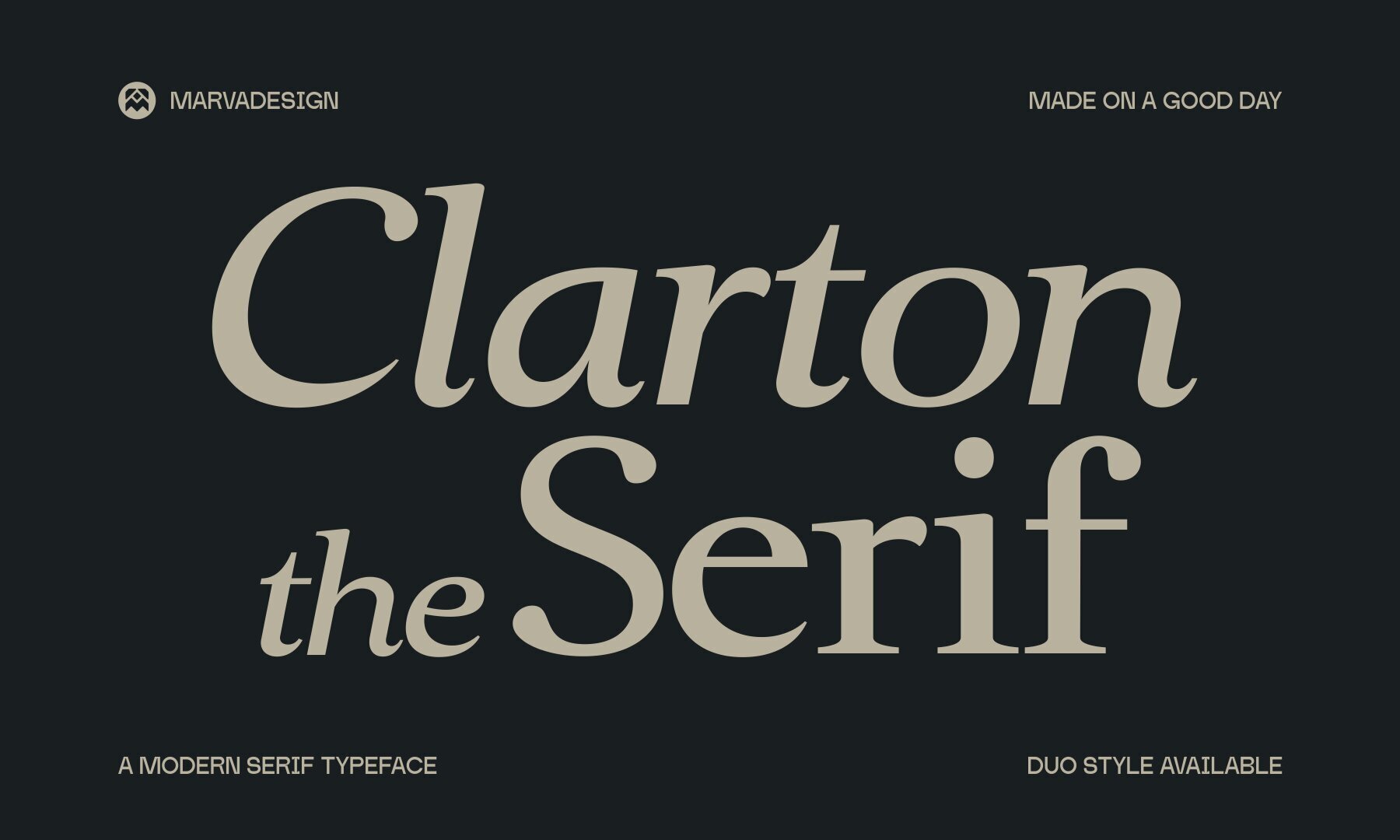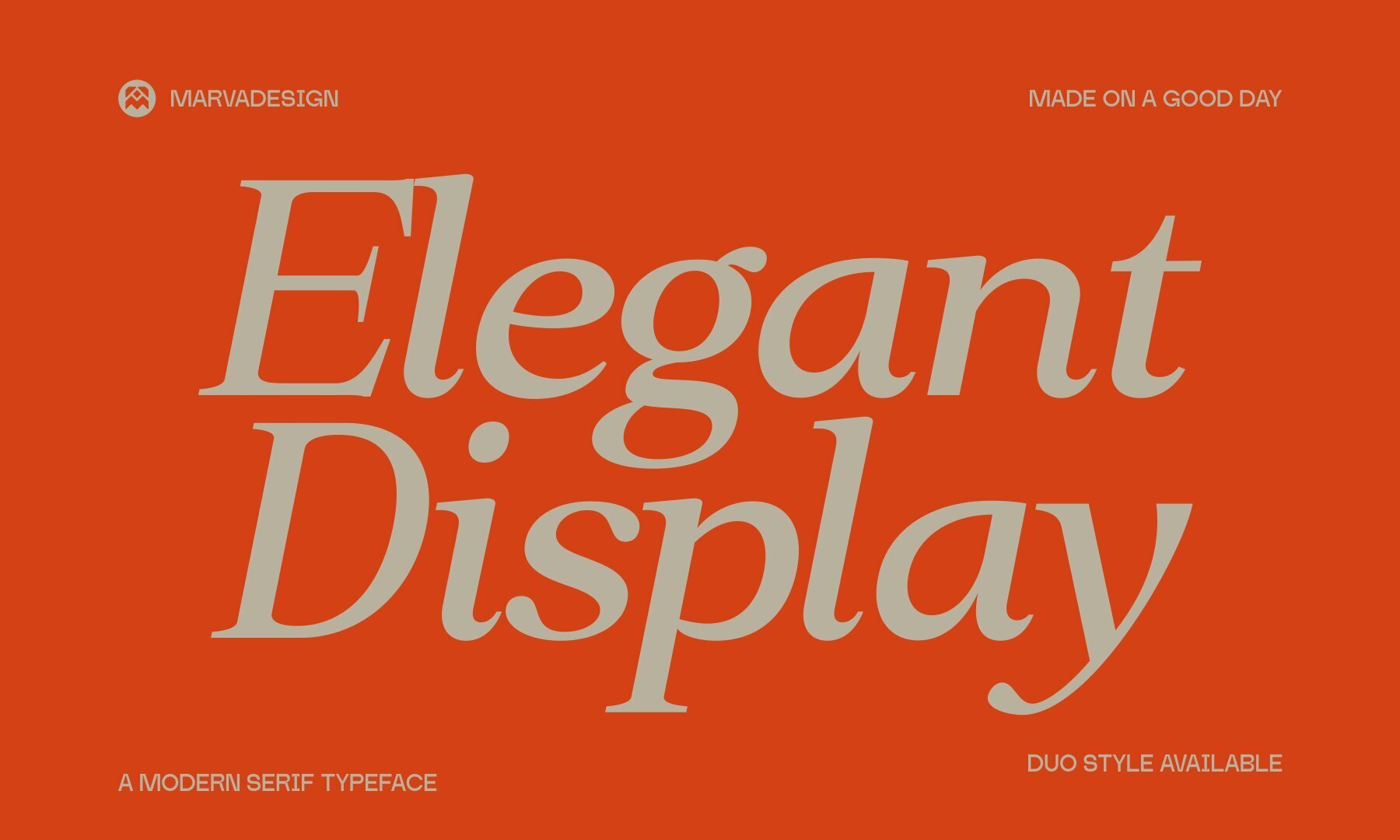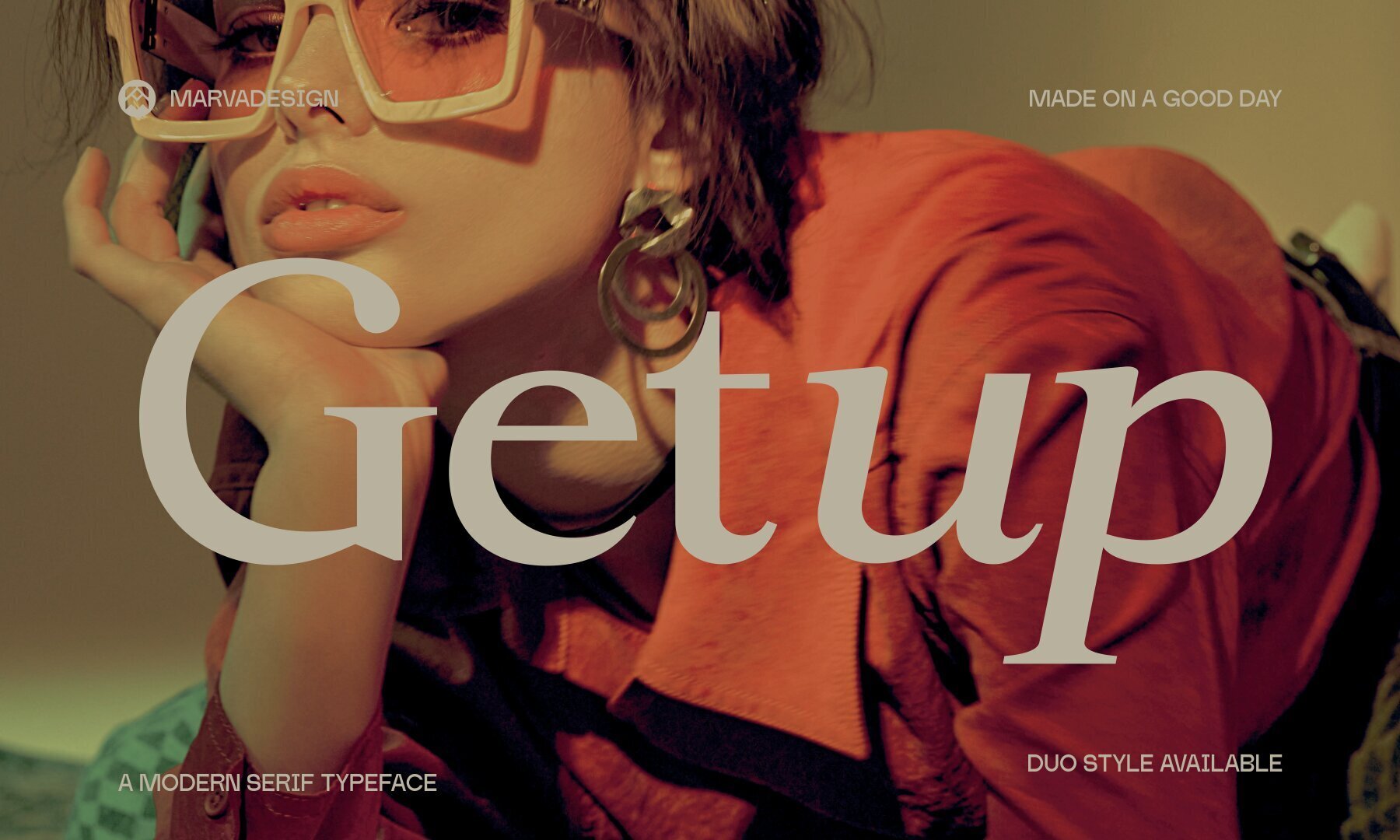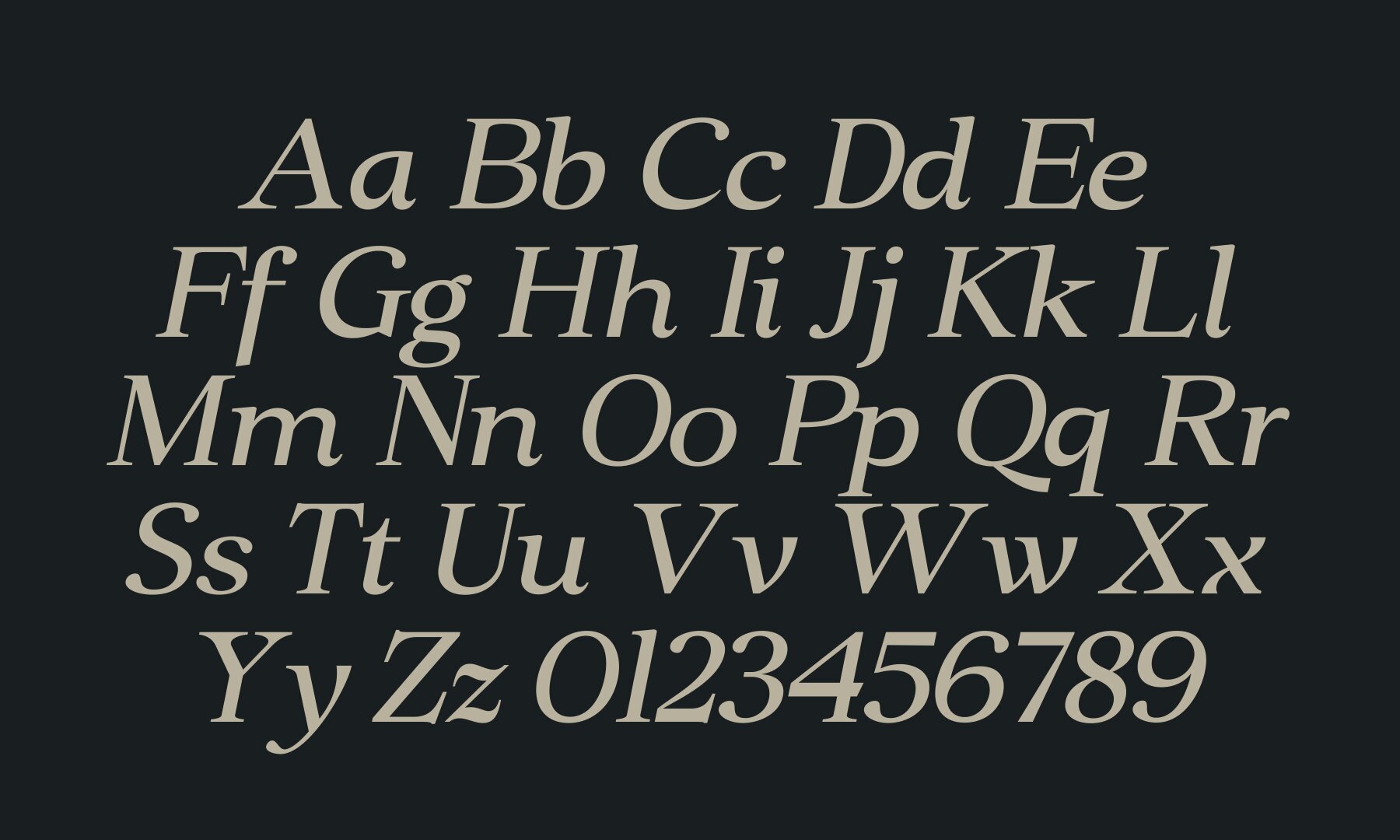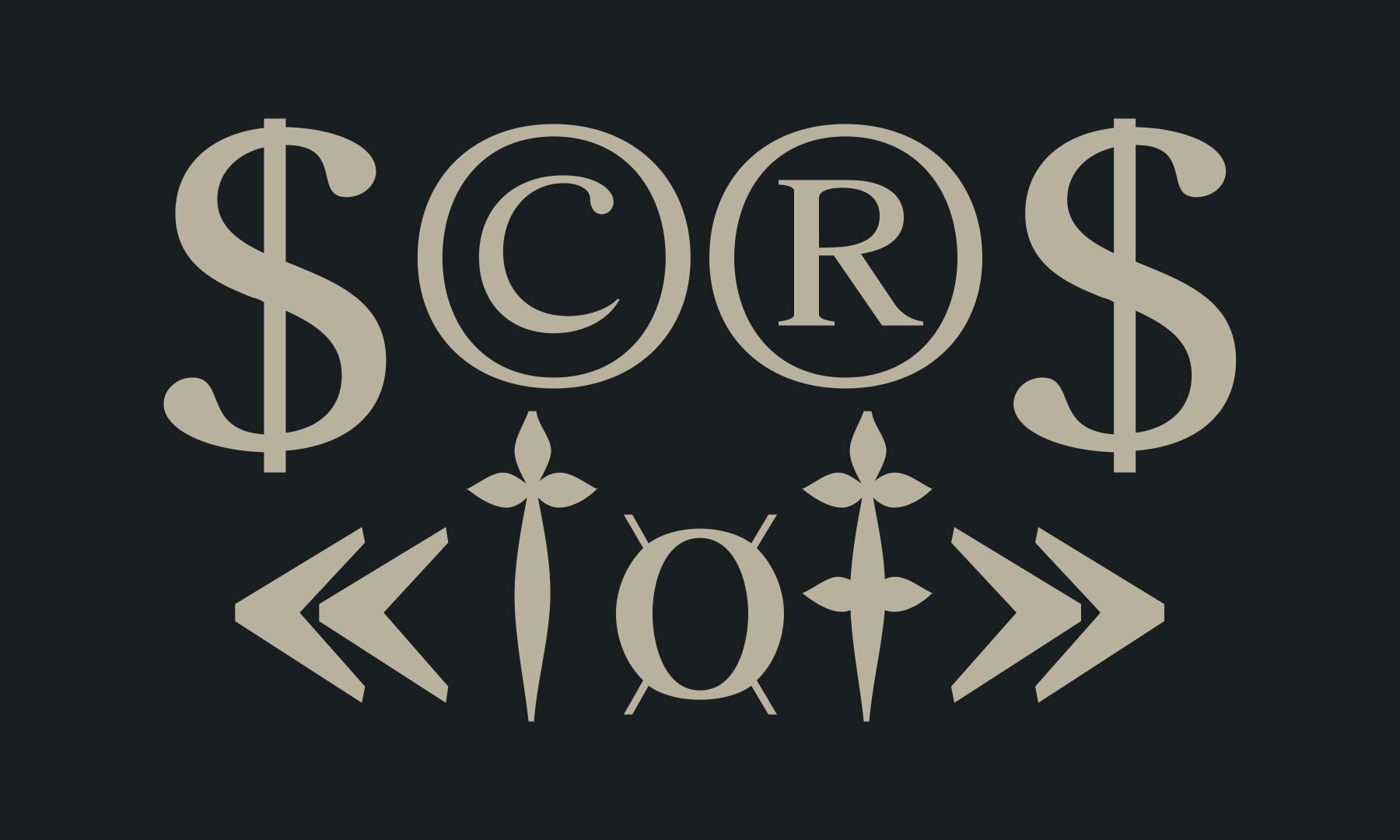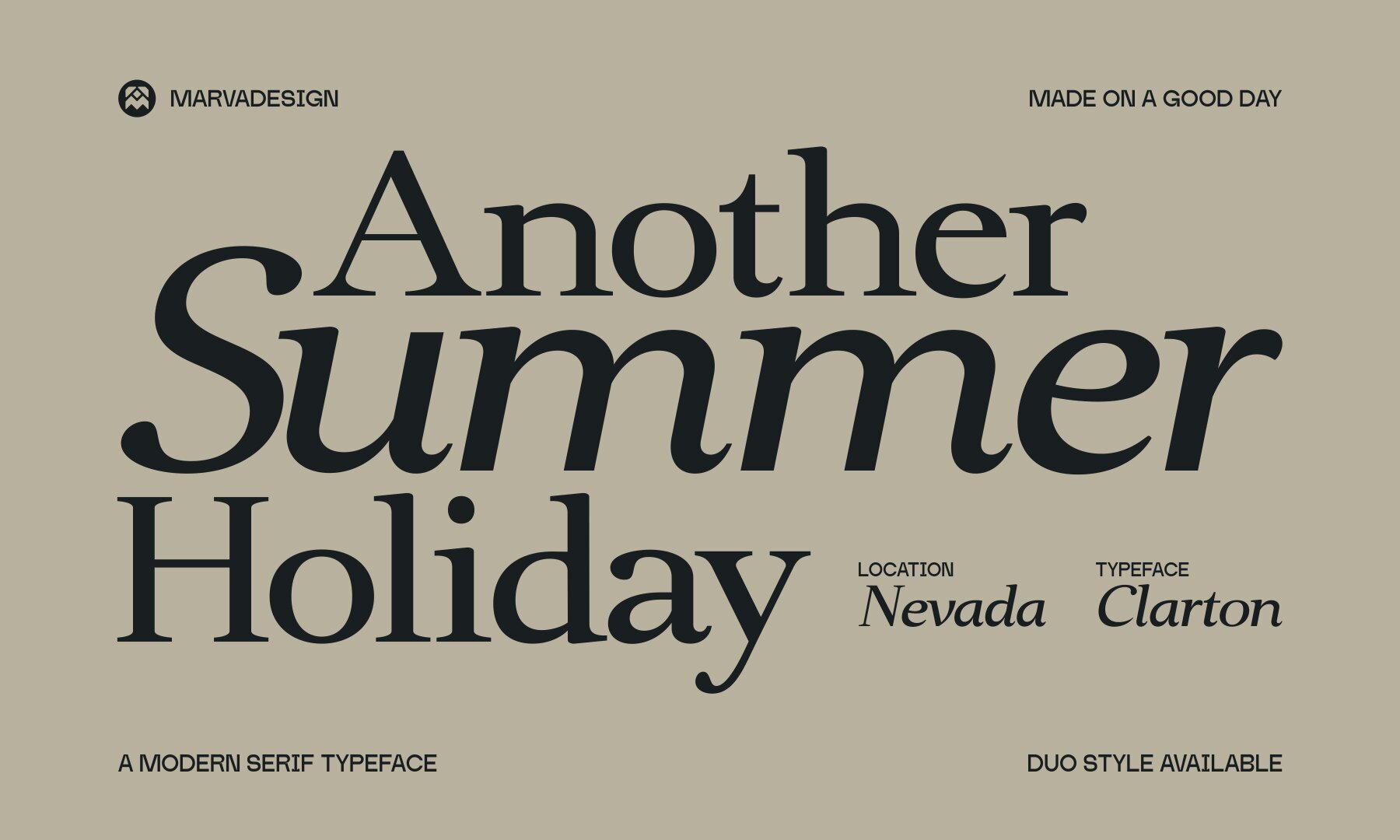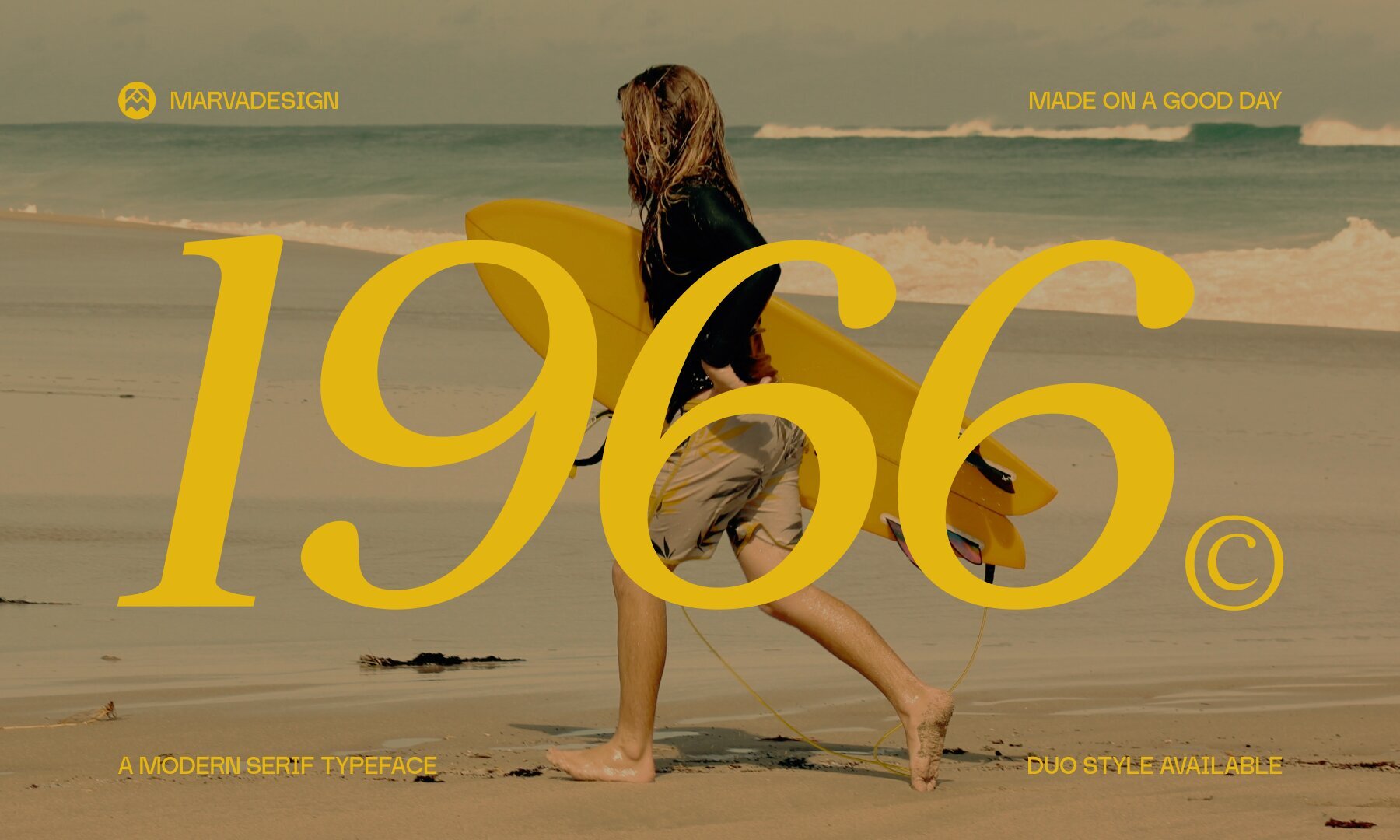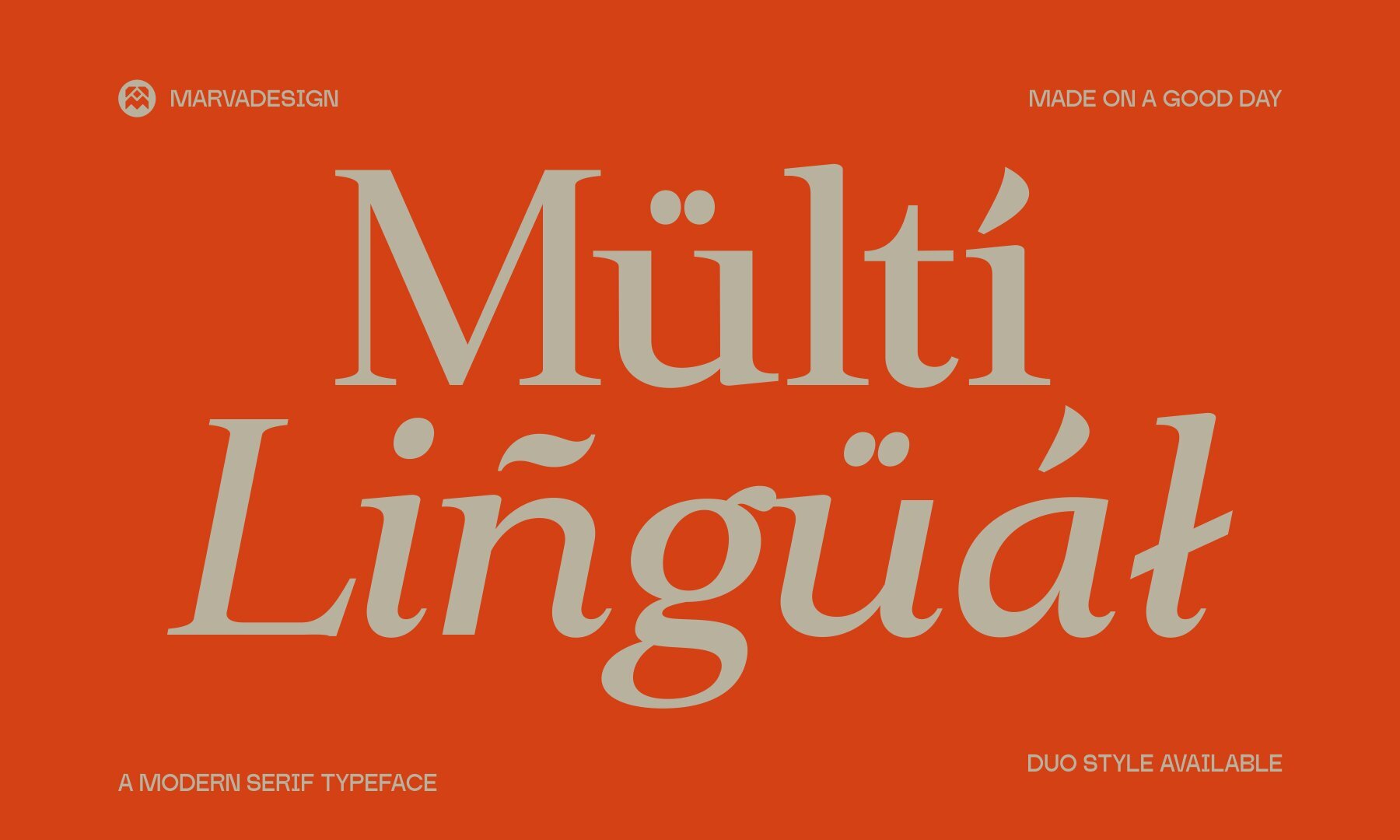
Clarton Font
Clarton Serif effortlessly captures elegance and sophistication with its modern design. This typeface showcases a striking contrast between thick and thin strokes, complemented by graceful curves and refined serifs. Ideal for luxury branding and editorial layouts, it offers a timeless aesthetic that enhances magazine headlines and any design seeking a touch of class. Featuring a natural italic style, Clarton Serif introduces an expressive rhythm and a sense of movement to your text. Its well-balanced uppercase and lowercase characters are perfect for display purposes and those short texts that require a commanding visual presence.Clarton Serif Typeface